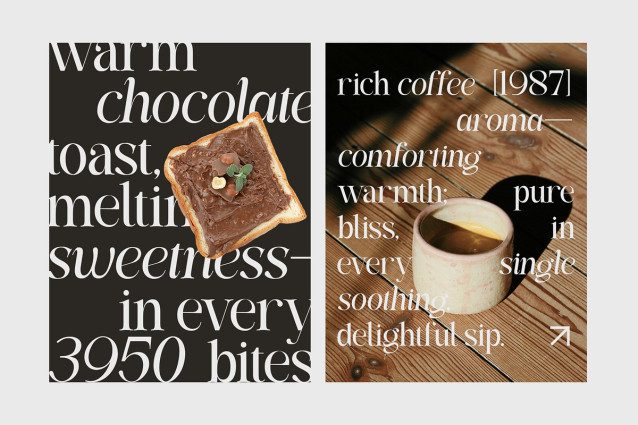
Eleonore Serif Font
Eleonore Serif Font is a classy and elegant serif font crafted for high-end branding and editorial projects. With refined curves, balanced contrast, and a timeless feel, Eléonore brings sophistication and aesthetic grace to every design it touches.